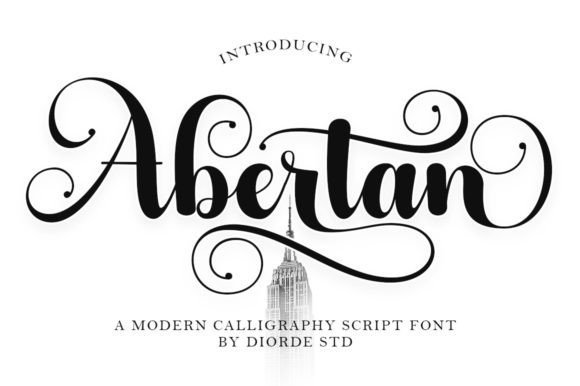
Unleash the Whimsy in Your Designs
Have you ever been working on a design project and suddenly, the perfect font pops into your mind, elevating the entire piece to a new level? That’s what happens when you discover the Abertan Font – a stunning, handwritten font that adds a touch of luxury to any design.
With its playful characters dancing along the baseline, the Abertan Font is sure to bring a smile to your face and a touch of elegance to your designs. Whether you’re working on a wedding invitation, a branding project, or a creative poster, this font is the perfect choice to add a personal and whimsical touch. As a designer, you know the value of the right font in making your project stand out, and the Abertan Font is a valuable addition to your toolkit.
Abertan Font Key Features
- Unique Characteristics: Abertan Font features a unique, hand-drawn design with subtle irregularities, giving it a natural and organic feel.
- Kerning and Ligatures: Abertan Font includes advanced kerning and ligature pairs, ensuring that text is displayed with precision and clarity.
Abertan Font Review
As a designer, I was excited to dive into the Abertan font and see what it had to offer. ✨ One of the things that really stood out to me was the font’s unique blend of modern and vintage flair. The Abertan font is a beautiful example of a script font that still feels fresh and modern, making it perfect for a wide range of design projects.
Here are some of the key features that I think make the Abertan font stand out:
- ✨ Unique blend of modern and vintage flair
- ✨ Perfect for script-based designs, such as logos, titles, and quotes
- ✨ Highly customizable, with a wide range of font weights and styles to choose from
However, as with any font, there are some limitations to be aware of:
- ⚠️ The Abertan font may not be the best choice for body text, as it can be quite ornate and difficult to read at small font sizes
- ⚠️ Some of the more complex characters may not render correctly in certain software or browsers
Overall, I think the Abertan font is a great addition to any designer’s toolkit. While it may have some limitations, its unique style and high level of customizability make it a great choice for a wide range of design projects.
Abertan Font works well for headings, titles, and quotes in Canva designs.
Abertan Font can be used for a variety of applications in Photoshop and Illustrator, including typography-based art and graphics.
Abertan Font works well for headings, titles, and body text in PowerPoint and Word documents.
Abertan Font is a versatile font that can be used for a variety of applications, including:
Comparison to Abertan Font: Carolyna Pro is more modern and minimalist compared to Abertan Font, making it a better choice for digital designs and modern branding. Abertan Font is more classic and traditional, making it better suited for print designs and traditional branding.
Does Abertan Font support Unicode characters and special glyphs?
Yes, Abertan Font supports a wide range of Unicode characters, including Latin, Cyrillic, and Greek alphabets. Additionally, the font includes a set of special glyphs, such as ligatures, swashes, and ornaments, which can be used to add visual interest to your designs.